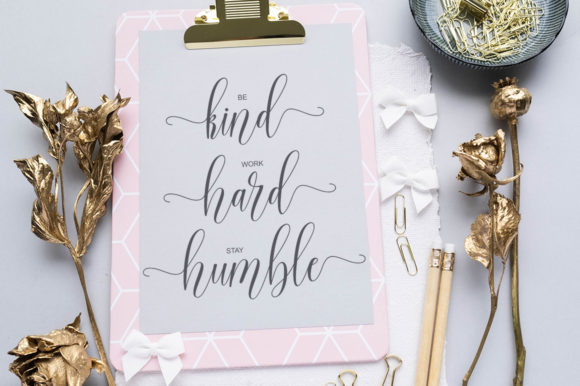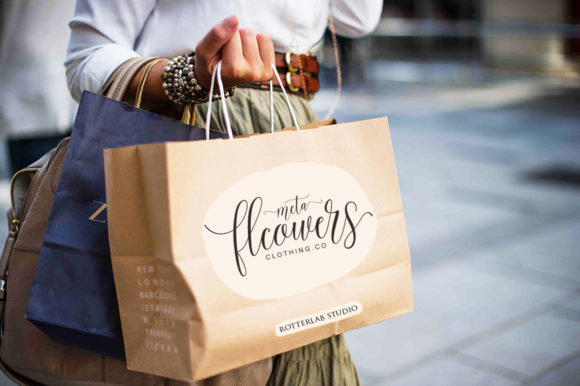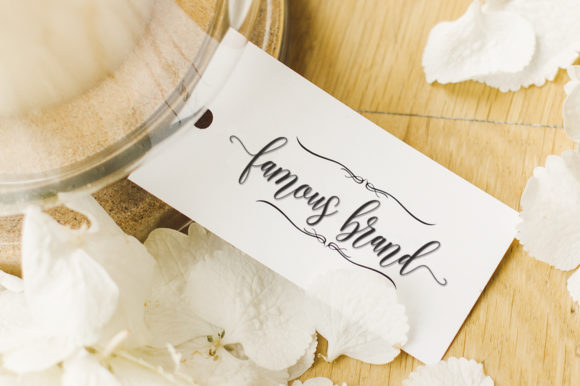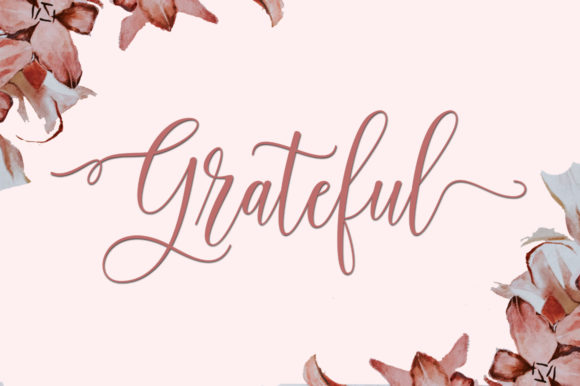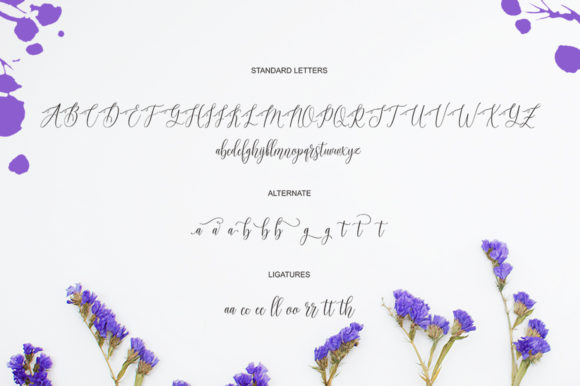
The Designer’s Dream Font: A Deep Dive into Blessong
I’ll never forget the moment I stumbled upon Blessong. I was working on a project for a client who wanted a custom logo that exuded elegance and whimsy. I had spent hours scouring font databases, but nothing seemed quite right. That was until I saw Blessong – an incredibly stunning handwritten font with a lot of character. It was love at first sight! 💕
In this article, I’ll share my experience with Blessong, what I love about it, its quirks, and how to make the most of its features on various design platforms. Whether you’re a designer, crafter, or creative hobbyist, you’ll want to get familiar with this versatile font.
An Honest Review of Blessong
What I Love About Blessong ✨
• 💫 Unique character: Blessong has a distinctive, hand-crafted feel that sets it apart from more generic fonts.
• ✅ Versatility: It works beautifully for both digital and print projects, from logos and branding to invitations and social media graphics.
• 🌈 Expressive: The font comes with a range of OpenType features, glyphs, and stylistic alternates that allow for endless creativity.
• 👍 Easy to read: Despite its artistic nature, Blessong remains surprisingly legible, even at smaller sizes.
While Blessong is an amazing font, it’s not without its quirks. For instance:
• 🤔 Limited use for body text: Due to its decorative nature, Blessong is best suited for headlines, titles, and short paragraphs. For longer texts, you might want to pair it with a more traditional font.
• ⚠️ Occasional kerning issues: As with any font, you might encounter some kerning issues, especially when using it in combination with other fonts. Be sure to adjust as needed.
The Story Behind Blessong
Blessong was designed by a talented type designer who aimed to create a font that would bring a touch of elegance and whimsy to any design project. Inspired by traditional calligraphy and modern handwriting, Blessong was crafted to be both beautiful and versatile.
Q: What type of projects is Blessong best suited for?
A: Blessong excels in projects that require a touch of elegance and personality, such as logos, branding, invitations, social media graphics, and more.
Q: Can I combine Blessong with other fonts?
A: Absolutely! Blessong pairs well with many fonts. Experiment with different combinations to find the perfect match for your design.